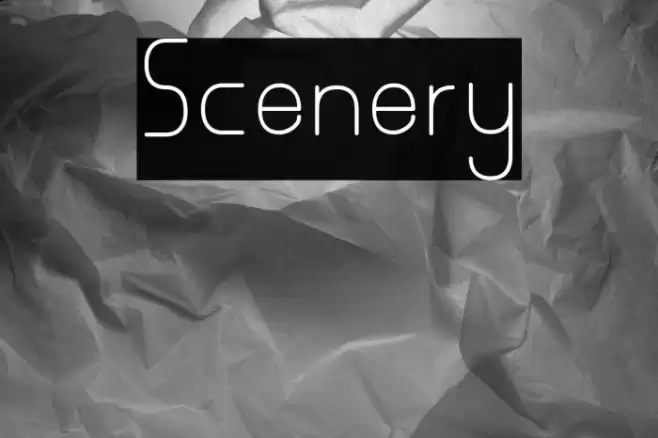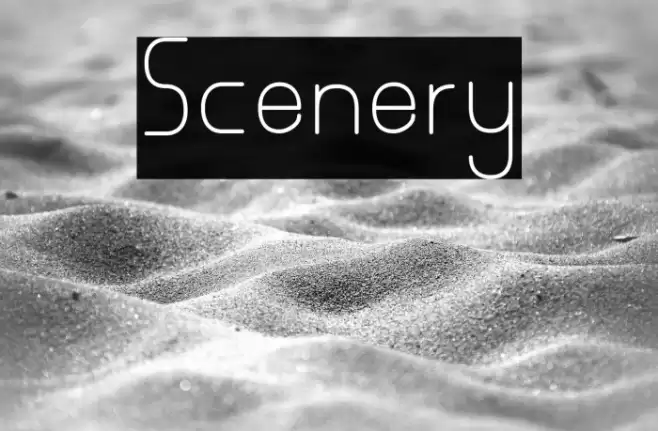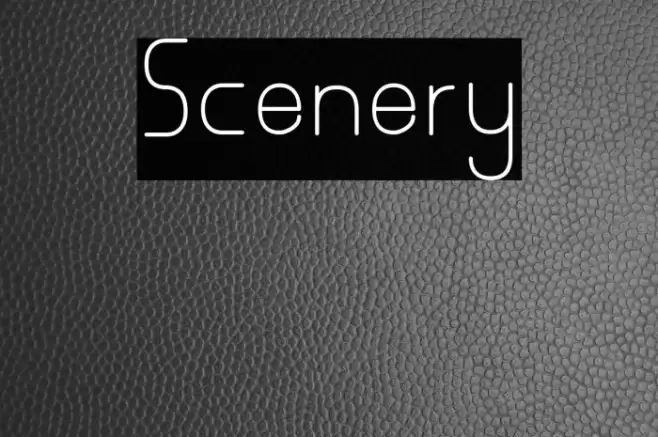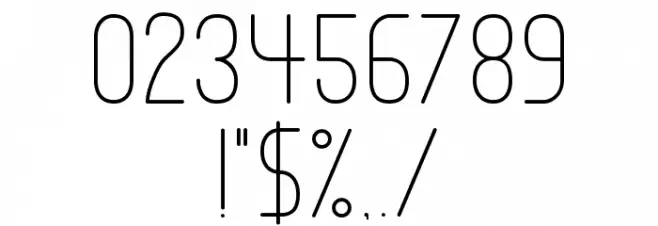
Scenery Font
Scenery Description
This font features a clean and modern design with a geometric structure. The characters are tall and slightly condensed, giving it a sleek and streamlined appearance. The strokes are consistent in width, contributing to a uniform and harmonious look. The rounded edges soften the overall feel, adding a touch of friendliness to the otherwise contemporary style. The numerals and special characters maintain the same aesthetic, ensuring a cohesive look across all elements.
A modern, geometric font with consistent stroke width and rounded edges from Regular fonts.
- Proposed Projects: Ideal for modern branding, tech-related projects, minimalist posters, and user interfaces.
- Use Case: Logos, Headlines, User Interfaces